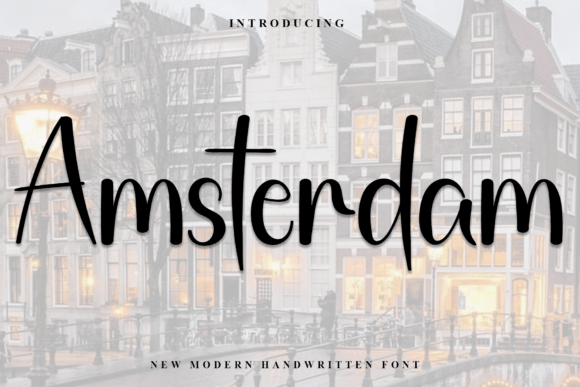
The Amsterdam Font: A Timeless Choice for Creative Designs
I’ll never forget the time I was working on a branding project for a new coffee shop, and I was struggling to find the perfect font. The client wanted something that would evoke a sense of warmth and coziness, but also be modern and eye-catching. That’s when I stumbled upon the Amsterdam font, and it instantly became my go-to choice. In this article, I’ll share with you why I love this font, its unique features, and how to make the most of it in your designs.
A Personal Review of Amsterdam Font
• ✨ The Amsterdam font is a beautiful, handwritten script that adds a touch of elegance to any design.
• ✅ Its unique letterforms make it perfect for creating eye-catching logos, branding, and quotes.
• 💫 The font has a timeless quality that will make your design stand out from the crowd.
• 🎨 It’s incredibly versatile and can be used for a wide range of design projects, from invitations to social media graphics.
While I absolutely love the Amsterdam font, there are a few things to keep in mind:
• ⚠️ The font can be a bit tricky to read at small sizes, so make sure to test it thoroughly before finalizing your design.
• 🤔 Some of the letterforms can be a bit quirky, which may not be suitable for more formal designs.
The Designer Inspiration Behind Amsterdam Font
The Amsterdam font was inspired by the city’s rich history and cultural heritage. Its unique letterforms are a nod to the city’s iconic architecture, canals, and artistic traditions. The font’s designer aimed to capture the essence of Amsterdam’s timeless beauty and make it accessible to designers around the world.
Font Name Amsterdam Font
Author PiPi Creative
Q: What is the Amsterdam font best used for?
A: The Amsterdam font is perfect for creating eye-catching logos, branding, and quotes. Its unique letterforms make it a great choice for designs that need a touch of elegance and sophistication.
Q: Is the Amsterdam font suitable for body text?
A: While the Amsterdam font is beautiful, it’s not ideal for body text. Its unique letterforms can be a bit tricky to read at small sizes, so it’s best used for headlines, titles, and short paragraphs.